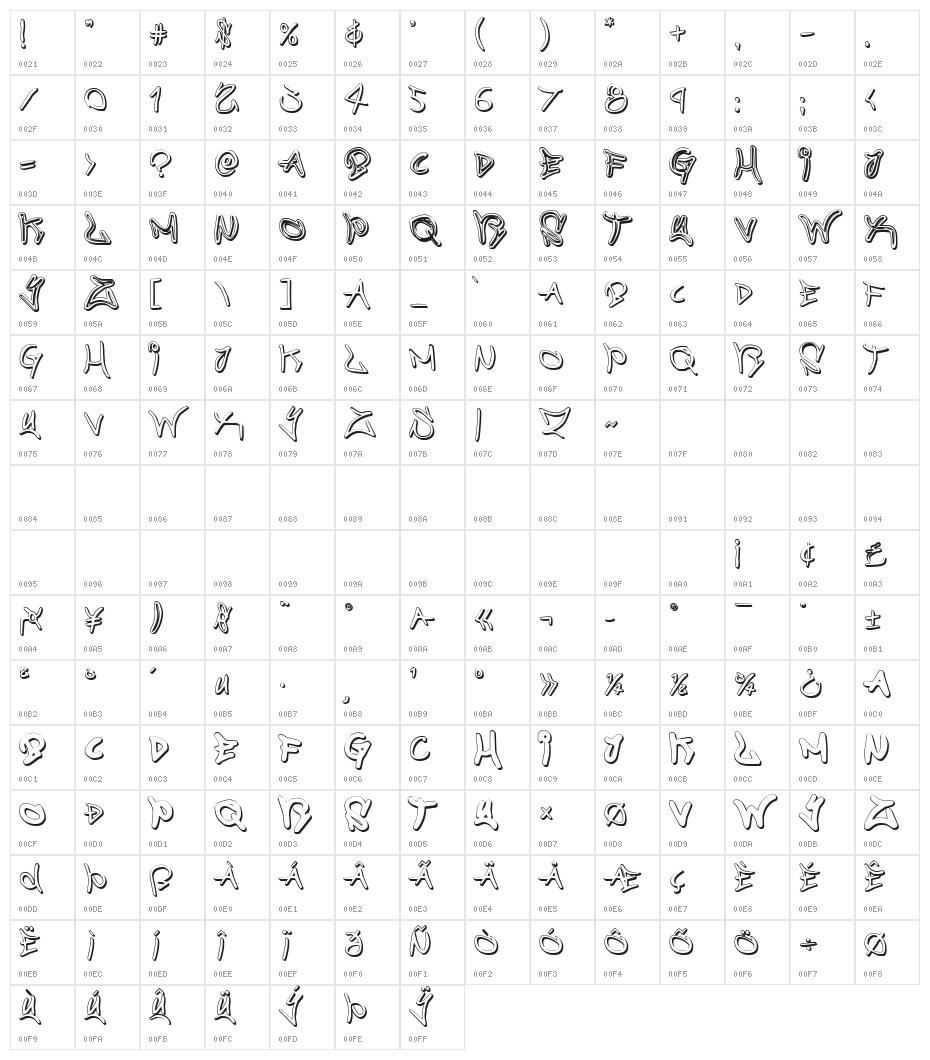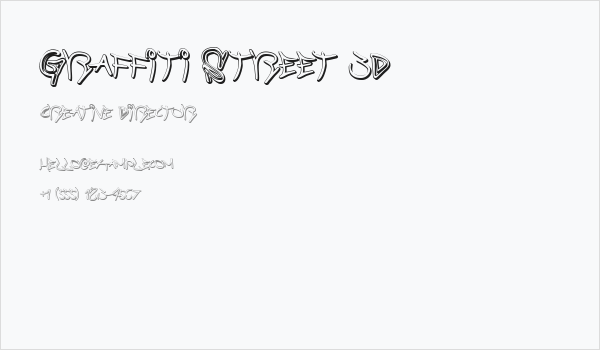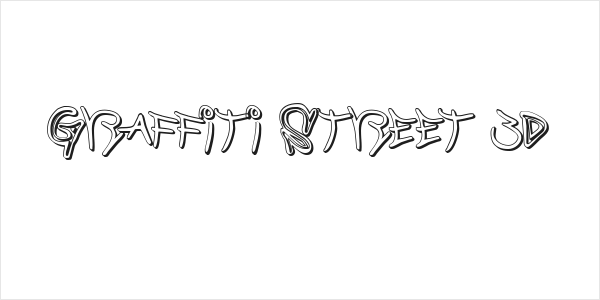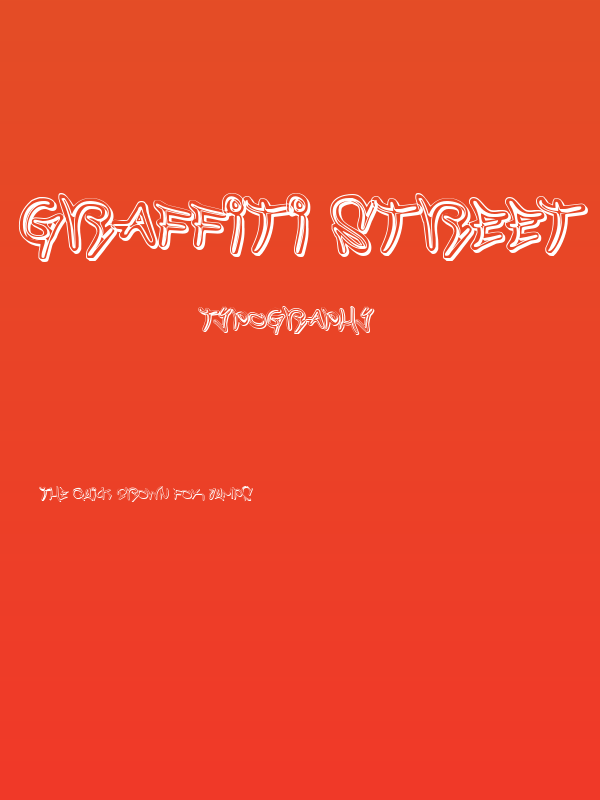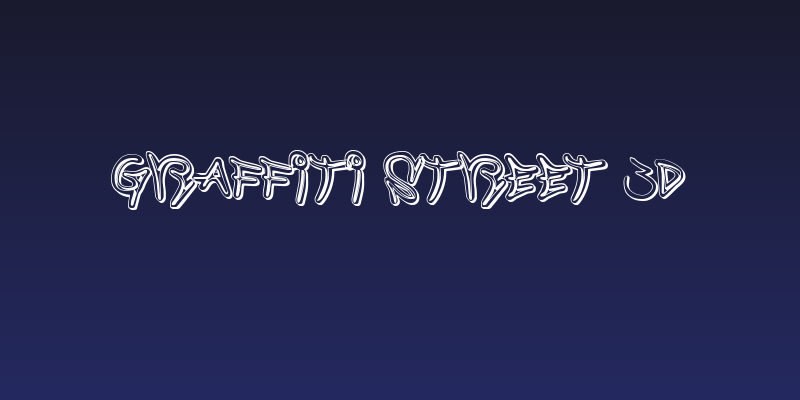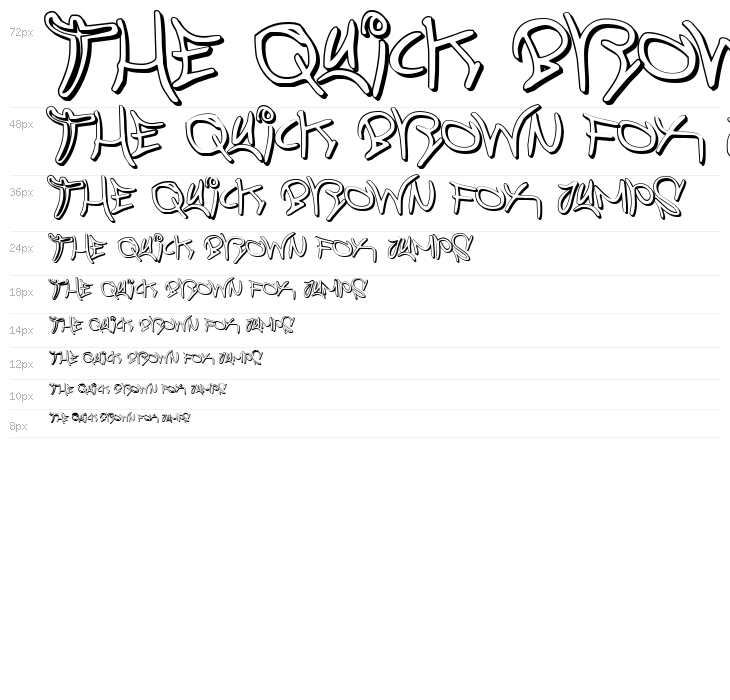
Graffiti Street 3D Font
Graffiti Street 3D Description
This font exudes a dynamic and urban vibe, reminiscent of street art and graffiti culture. The letters are bold and have a three-dimensional effect, with thick outlines that give them a standout appearance. The characters are creatively stylized, with exaggerated curves and angles that mimic the fluidity and spontaneity of spray-painted art. This font captures the essence of rebellious expression and artistic freedom, making it ideal for projects that aim to convey a sense of edginess and creativity. The numbers and special characters maintain the same energetic style, ensuring consistency across all text elements.
| Overall Style | Urban, Artistic, Edgy |
| Use Case | Logos, Posters, Headlines |
| Proposed Projects | Ideal for street art-themed designs, music album covers, urban fashion branding, and event posters. |